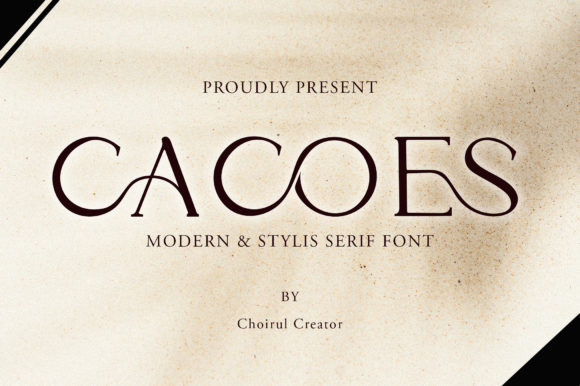
I still remember the frustration of working on a project, hours spent crafting the perfect design, only to be held back by one thing: the font. It was as if my design was crying out for that one special something, but I just couldn’t find it. The client wanted something modern, luxurious, and elegant, but everything I tried seemed to fall flat. That was until I stumbled upon **Cacoes Font**.
First Impressions: A Modern Luxury
Cacoes is a modern, luxurious, and thin lettered serif font that has quickly become my go-to for a wide variety of designs. Its neat and simple style makes it incredibly versatile, and I love how it can elevate any project with its touch of elegance. Whether I’m working on a branding project, a wedding invitation, or a packaging design, Cacoes always seems to fit the bill.
- ✨ Modern and Luxurious Feel: Cacoes has a certain sophistication to it that makes any design look high-end.
- ✅ Versatility: From digital projects to print materials, Cacoes adapts seamlessly.
- 💡 Ease of Use: The font is clean and simple, making it easy to read and work with.
- 🎨 OpenType Features: Cacoes supports a range of OpenType features, including stylistic alternates and glyphs, which can add an extra layer of creativity to your designs.
While Cacoes is an amazing font, there are a few things to keep in mind:
- 🤔 Legibility at Small Sizes: Like many thin serif fonts, Cacoes can be a bit tricky to read at very small sizes. It’s best used at larger sizes where its elegance can shine.
- ⚠️ Overuse: Because of its luxurious feel, it’s easy to overuse Cacoes in a design. Make sure to balance it with other elements to keep your design fresh.
The Story Behind Cacoes
Cacoes was designed with the modern designer in mind. Its creator wanted to craft a font that was both luxurious and versatile, suitable for a wide range of projects. Inspired by classic serif fonts but with a modern twist, Cacoes brings a touch of elegance to any design.
Q: What makes Cacoes suitable for luxury brands?
A: Cacoes’s thin lettered serif style and luxurious feel make it perfect for brands looking to convey elegance and sophistication.
Q: Can I use Cacoes for digital and print projects?
A: Absolutely! Cacoes is designed to be versatile and works well for both digital and print materials.
Q: Does Cacoes support OpenType features?
A: Yes, Cacoes supports OpenType features, including stylistic alternates and glyphs, which can enhance your typography.
Q: Is Cacoes easy to read?
A: Cacoes is generally easy to read, especially at larger sizes. However, like many thin serif fonts, it may be less readable at very small sizes.